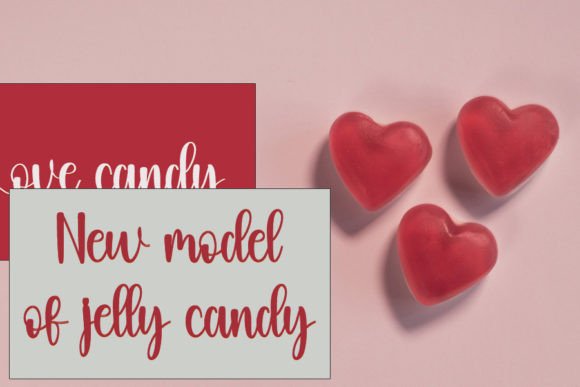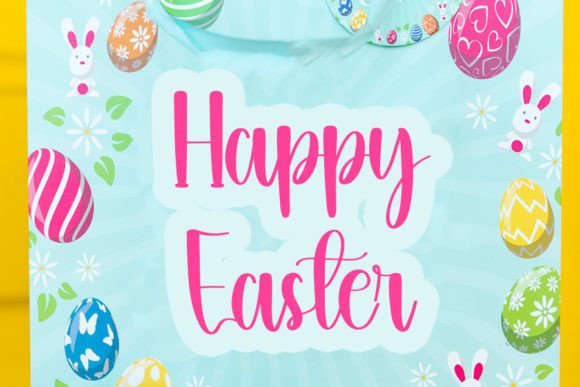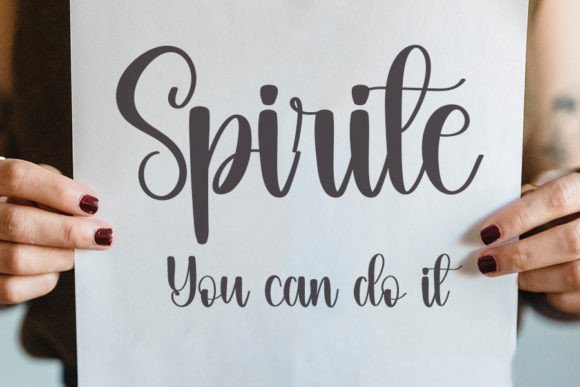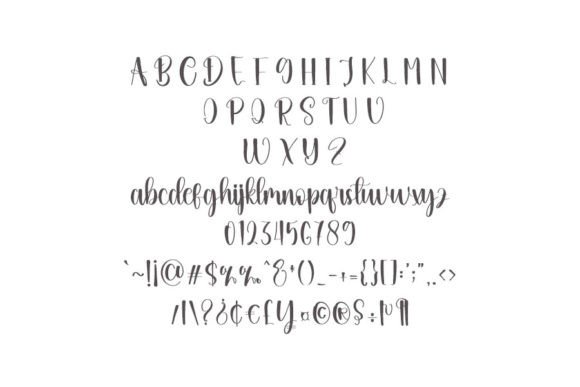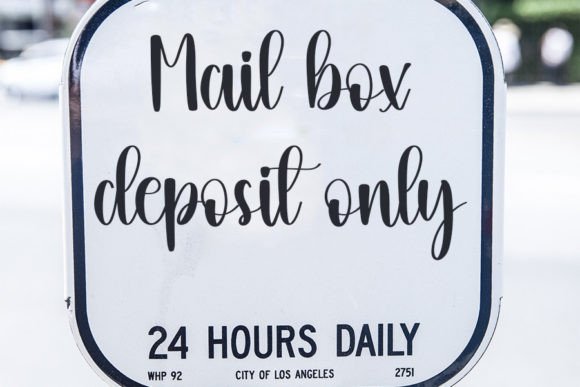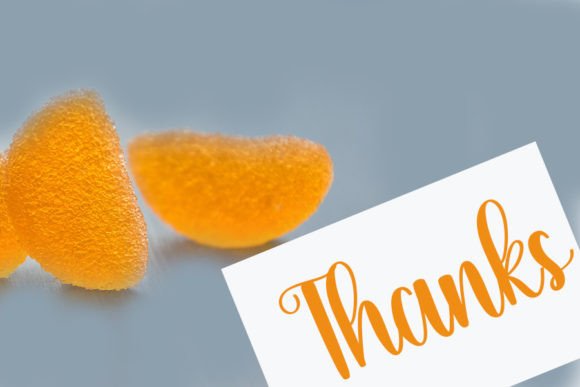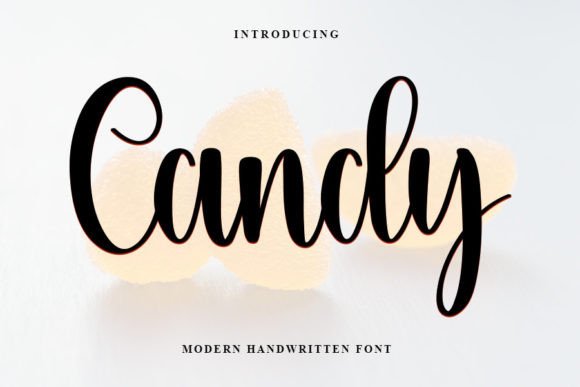
Candy Font: Add a Touch of Whimsy and Romance to Your Designs
Candy is an enchanting handwritten font that has captured the hearts of designers and crafters alike. This versatile script font has a wide spectrum of applications, ranging from greeting cards to headlines, and is guaranteed to add a romantic feel to your next project. In this article, we’ll dive into the world of Candy Font, exploring its features, uses, and benefits, as well as provide tips and inspiration for incorporating it into your designs.
What is Candy Font?
Candy Font is a beautiful, handwritten script font that exudes a sense of whimsy and romance. Its flowing curves and delicate lines make it perfect for creating elegant and feminine designs. The font comes in a range of styles, from bold and dramatic to light and airy, making it suitable for a wide range of applications.
Features of Candy Font
Candy Font boasts a range of features that make it a standout choice for designers and crafters. Some of its key features include:
- Handwritten script style: Candy Font has a beautiful, handwritten script style that adds a touch of personality to any design.
- Versatile: This font is incredibly versatile, making it suitable for a wide range of applications, from greeting cards to headlines.
- Romantic feel: Candy Font has a distinctly romantic feel, making it perfect for designs that require a touch of elegance and sophistication.
- Easy to read: Despite its ornate style, Candy Font is surprisingly easy to read, making it suitable for both headings and body text.
Uses of Candy Font
Candy Font is a versatile font that can be used in a wide range of applications, including:
- Greeting cards: Add a touch of elegance and sophistication to your greeting cards with Candy Font.
- Headlines: Use Candy Font to create eye-catching headlines that are sure to grab attention.
- Invitations: Create beautiful and elegant invitations with Candy Font, perfect for weddings, parties, and other special occasions.
- Logos: Use Candy Font to create a unique and memorable logo for your business or brand.
- Social media graphics: Add a touch of personality to your social media graphics with Candy Font.
Benefits of Using Candy Font
There are many benefits to using Candy Font in your designs, including:
- Unique and eye-catching: Candy Font is a unique and eye-catching font that is sure to grab attention.
- Emotional connection: The romantic feel of Candy Font can help create an emotional connection with your audience.
- Versatile: Candy Font is incredibly versatile, making it suitable for a wide range of applications.
- Easily readable: Despite its ornate style, Candy Font is surprisingly easy to read.
Tips for Using Candy Font
Here are some tips for using Candy Font in your designs:
- Use it sparingly: While Candy Font is beautiful, it can be overwhelming if used too much. Use it sparingly to create a focal point in your design.
- Pair it with a sans-serif font: Pairing Candy Font with a sans-serif font can create a beautiful contrast and make your design more readable.
- Experiment with colors: Candy Font looks beautiful in a range of colors, from bold and bright to soft and pastel.
- Have fun: Most importantly, have fun with Candy Font! Experiment with different styles and techniques to create a unique and eye-catching design.
Inspiration for Using Candy Font
Here are some ideas to get you started with using Candy Font:
- Wedding invitations: Create beautiful and elegant wedding invitations with Candy Font.
- Valentine’s Day cards: Add a touch of romance to your Valentine’s Day cards with Candy Font.
- Birthday party invitations: Create fun and playful birthday party invitations with Candy Font.
- Fashion branding: Use Candy Font to create a unique and memorable logo for your fashion brand.
In conclusion, Candy Font is a beautiful and versatile handwritten font that is perfect for adding a touch of whimsy and romance to your designs. With its wide range of applications, ease of use, and emotional connection, Candy Font is a great choice for designers and crafters alike. So why not give it a try and see how it can elevate your designs?